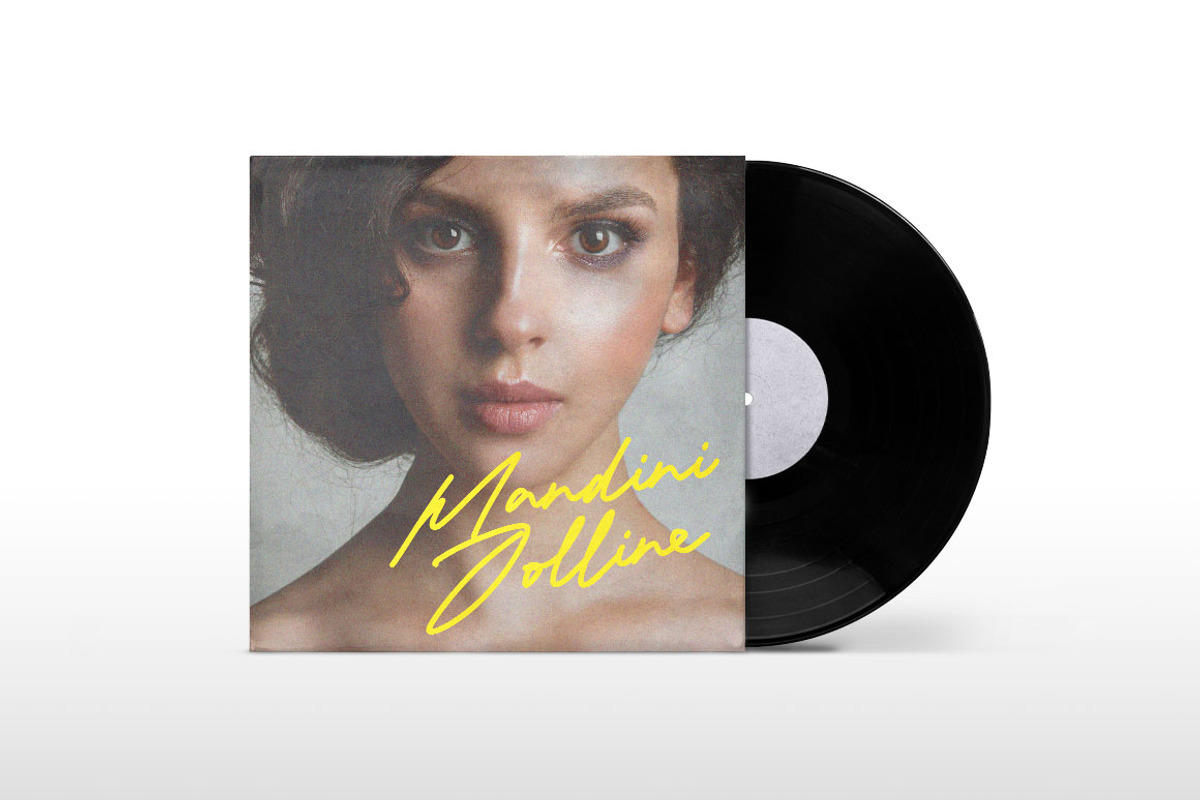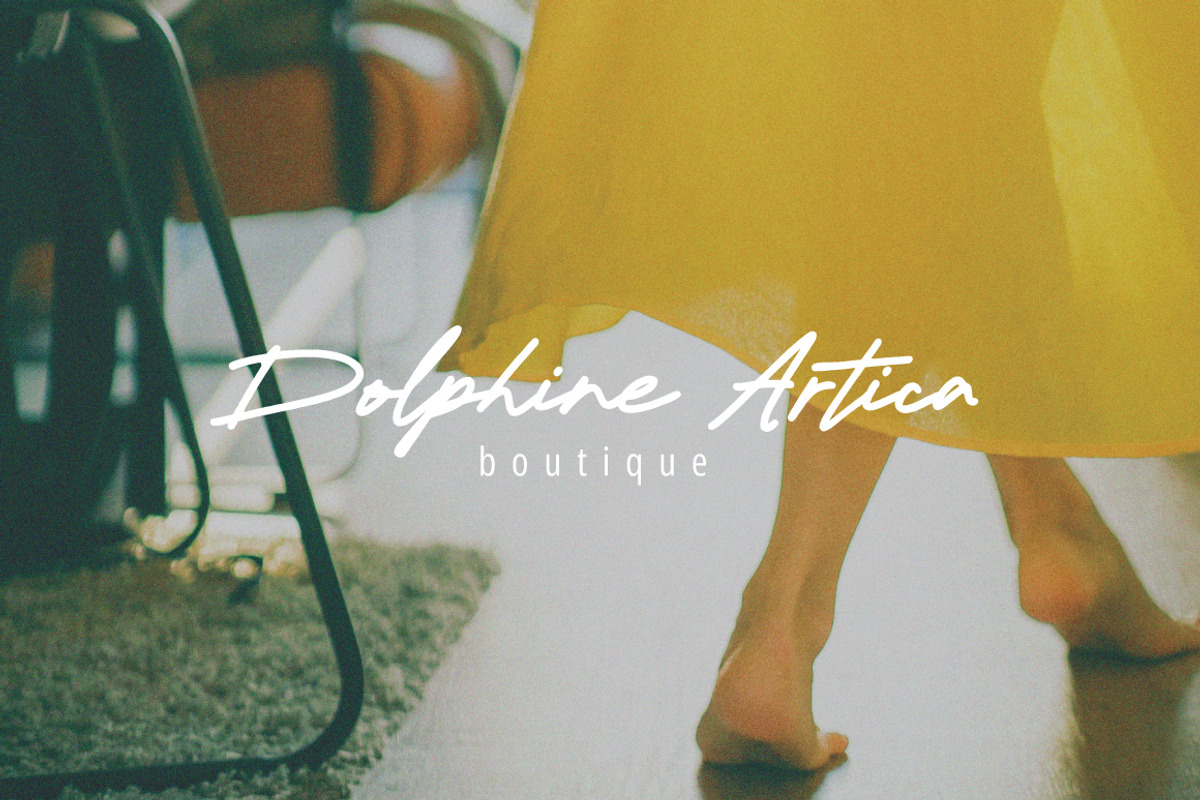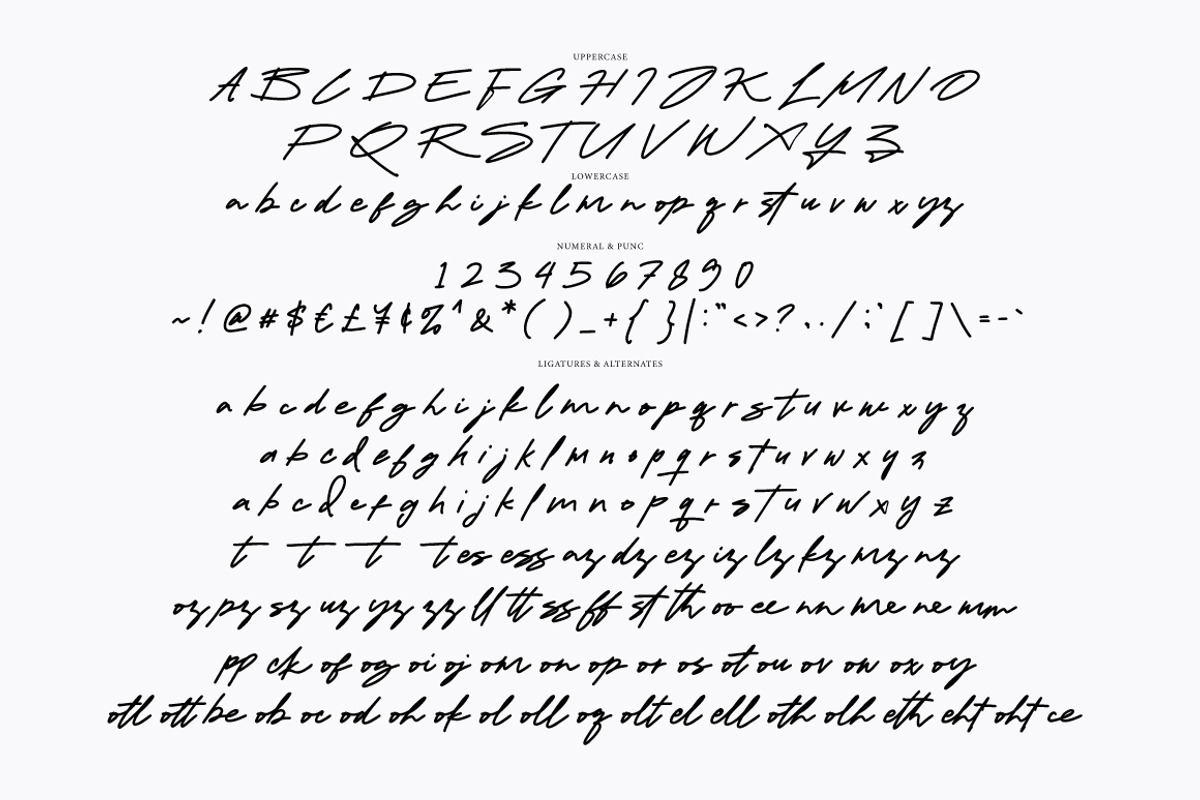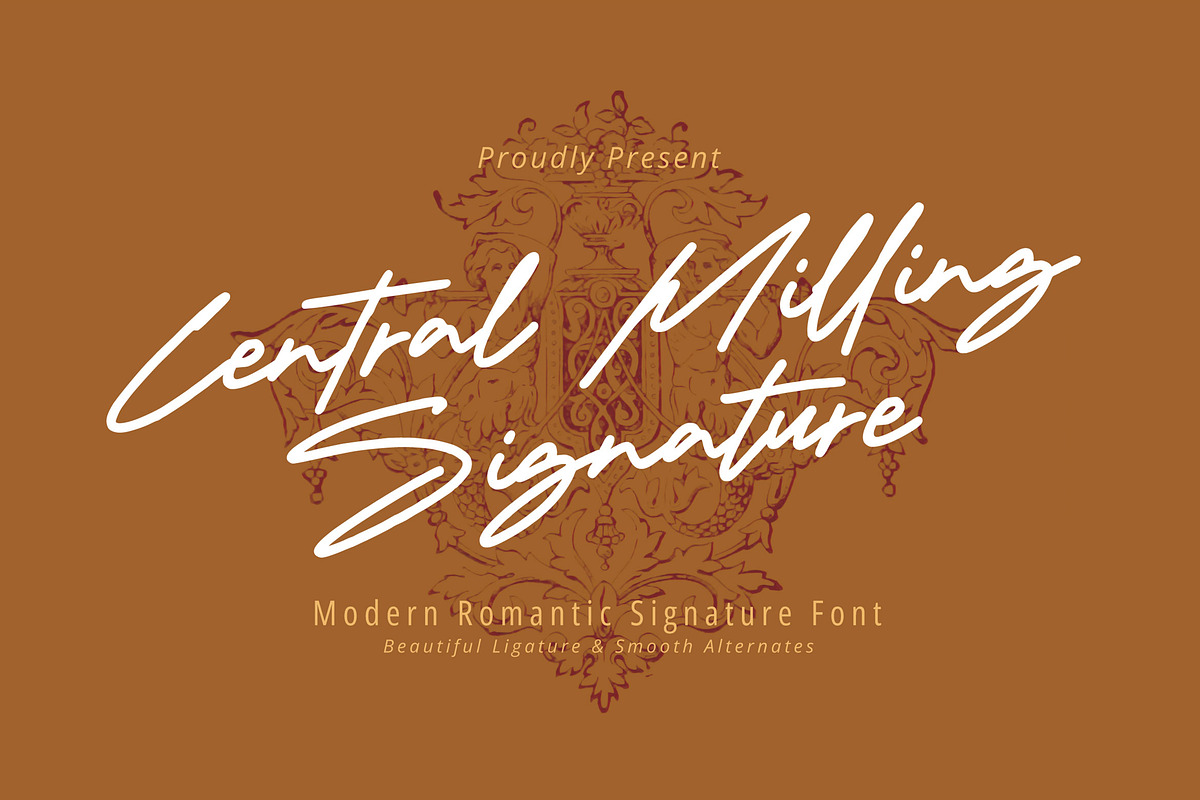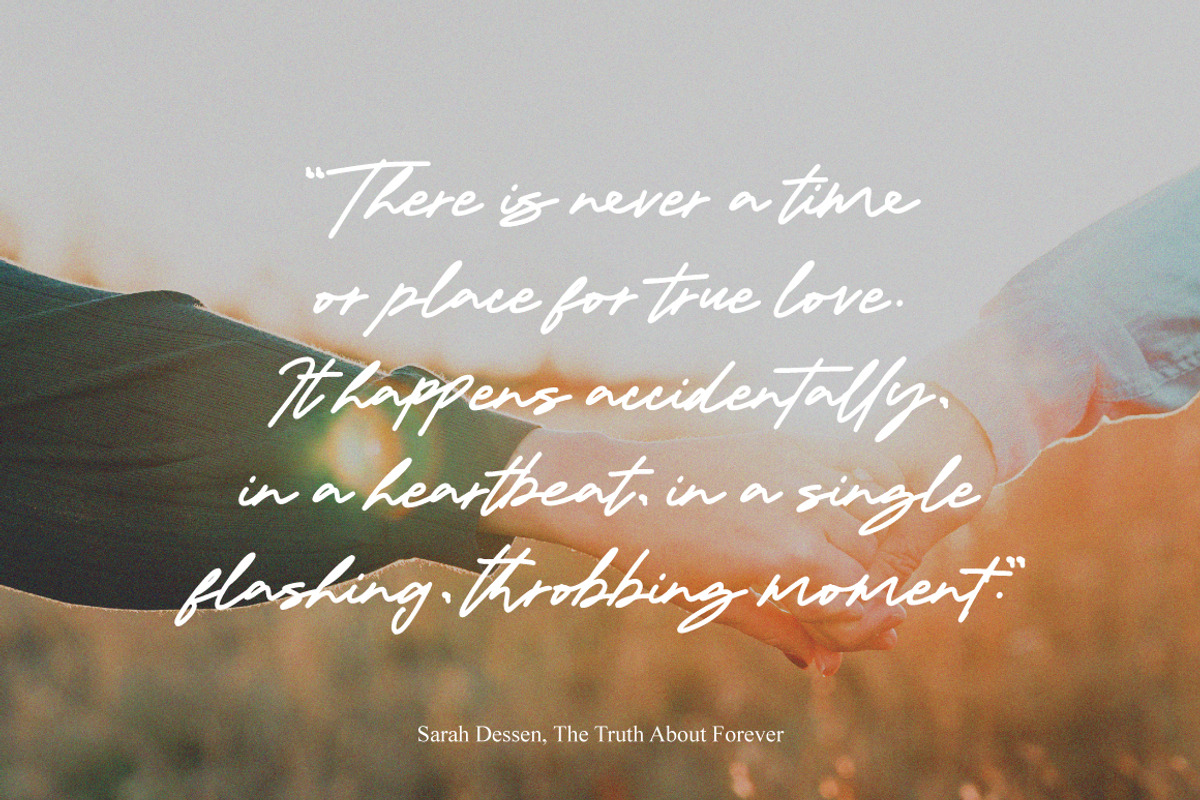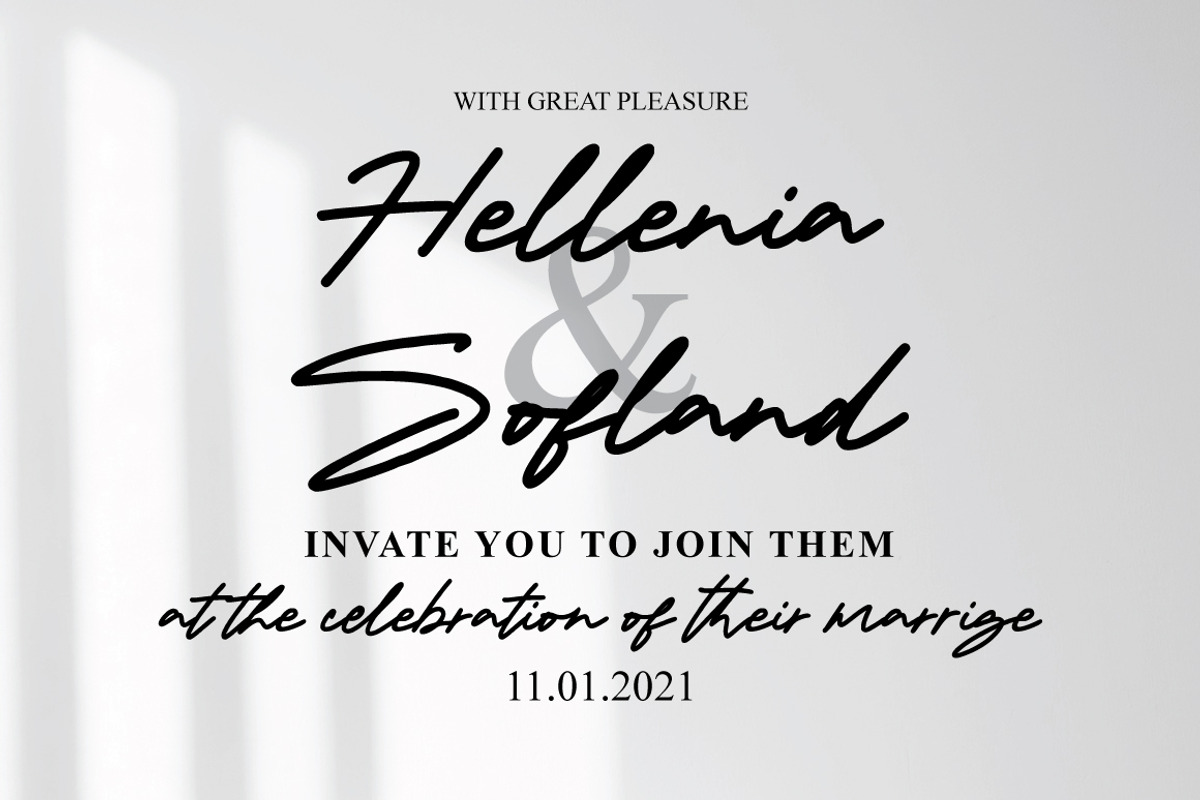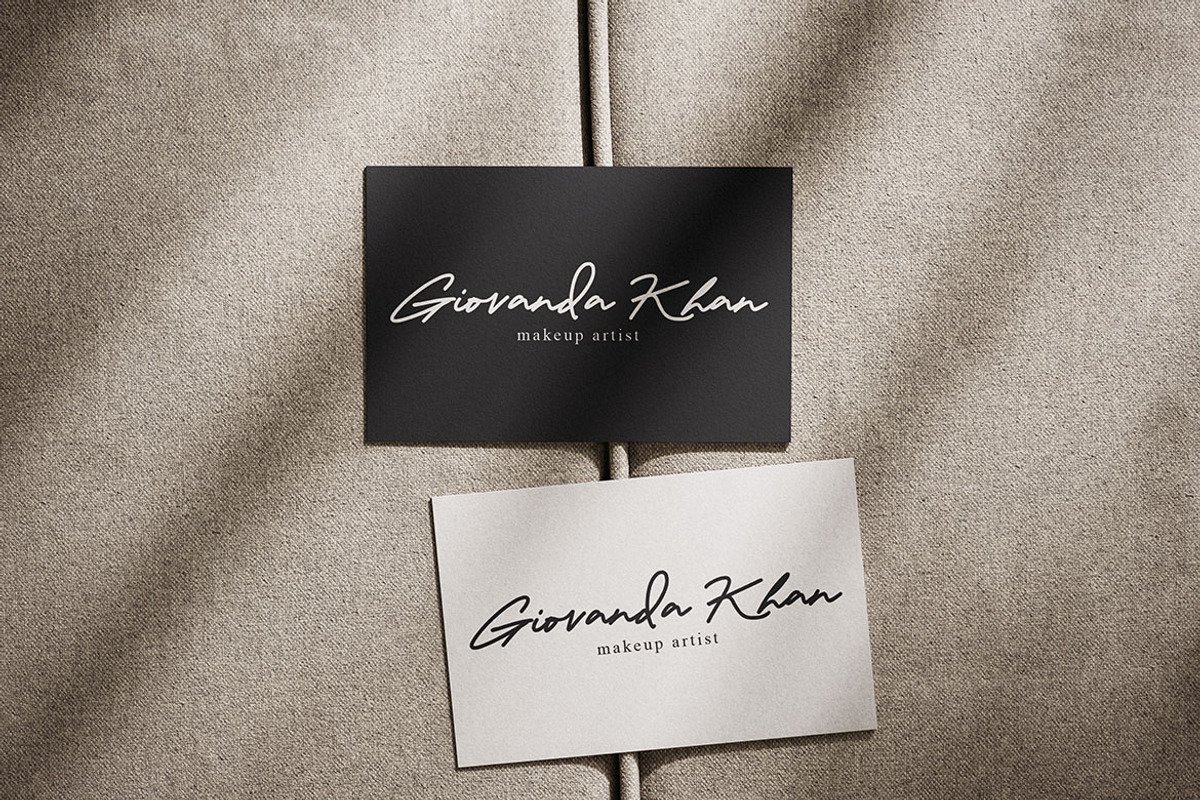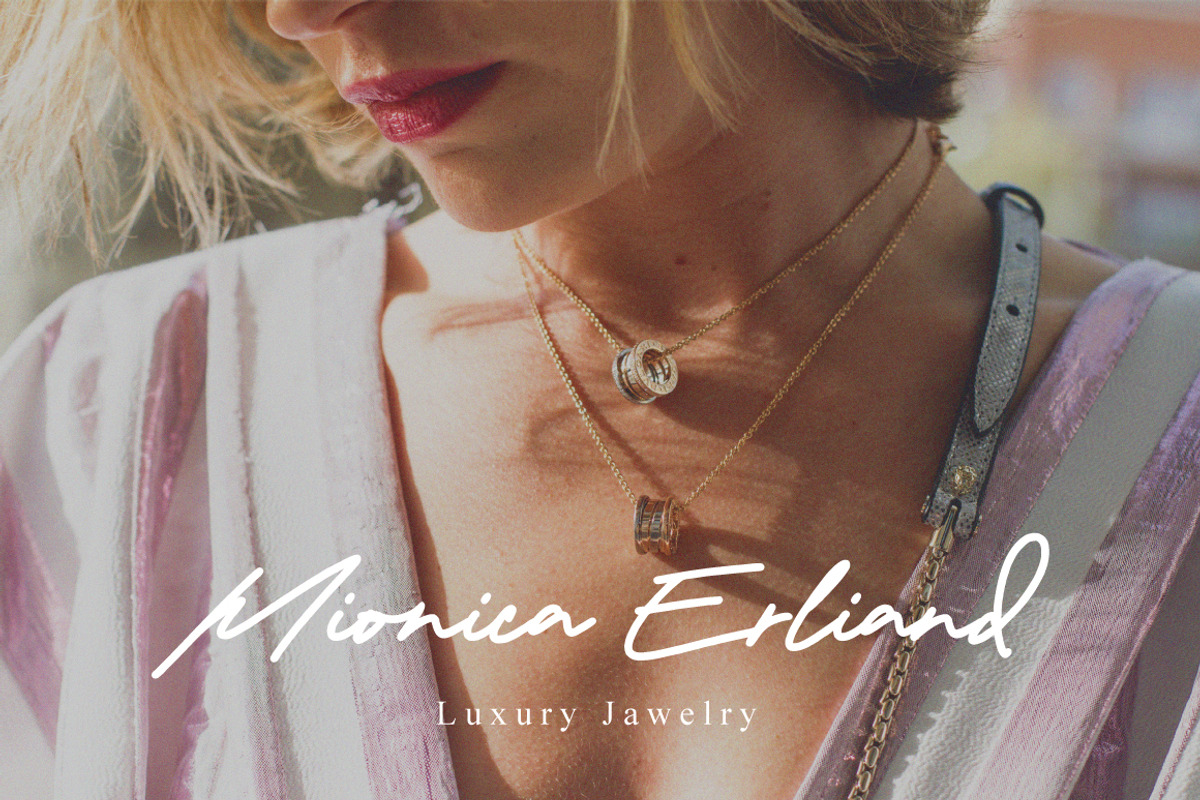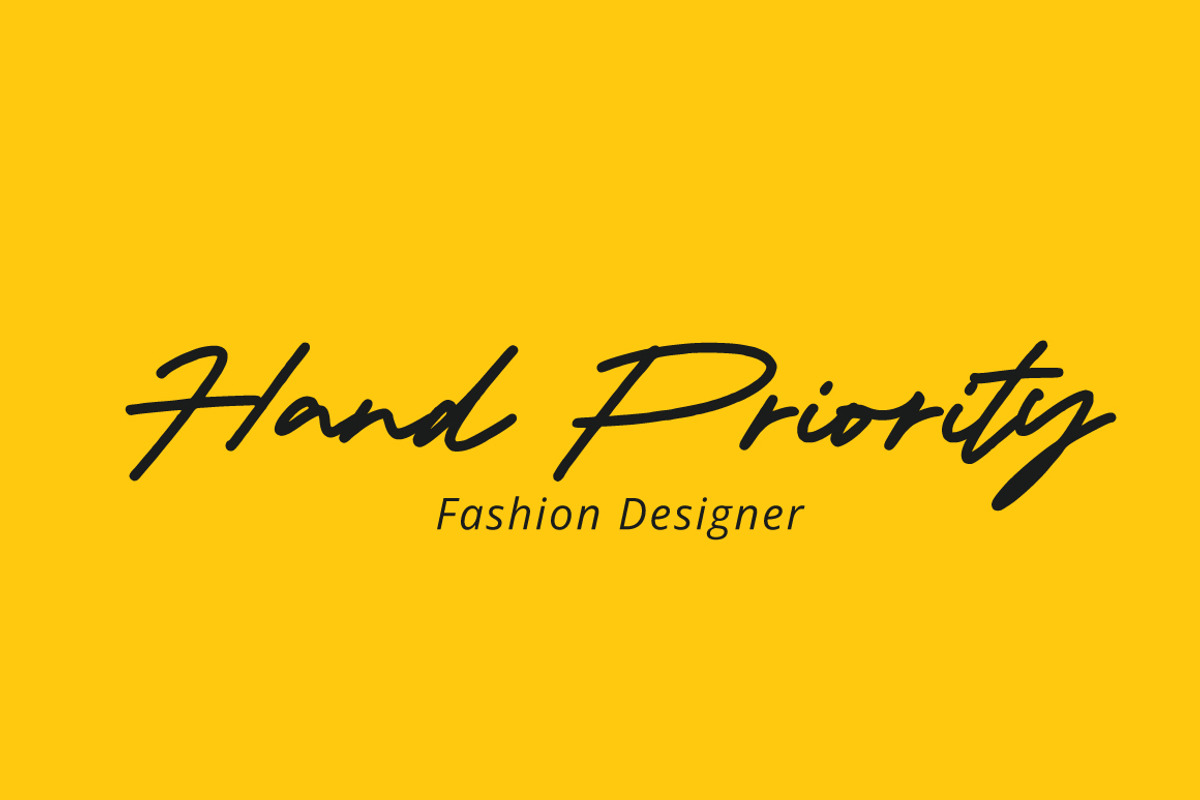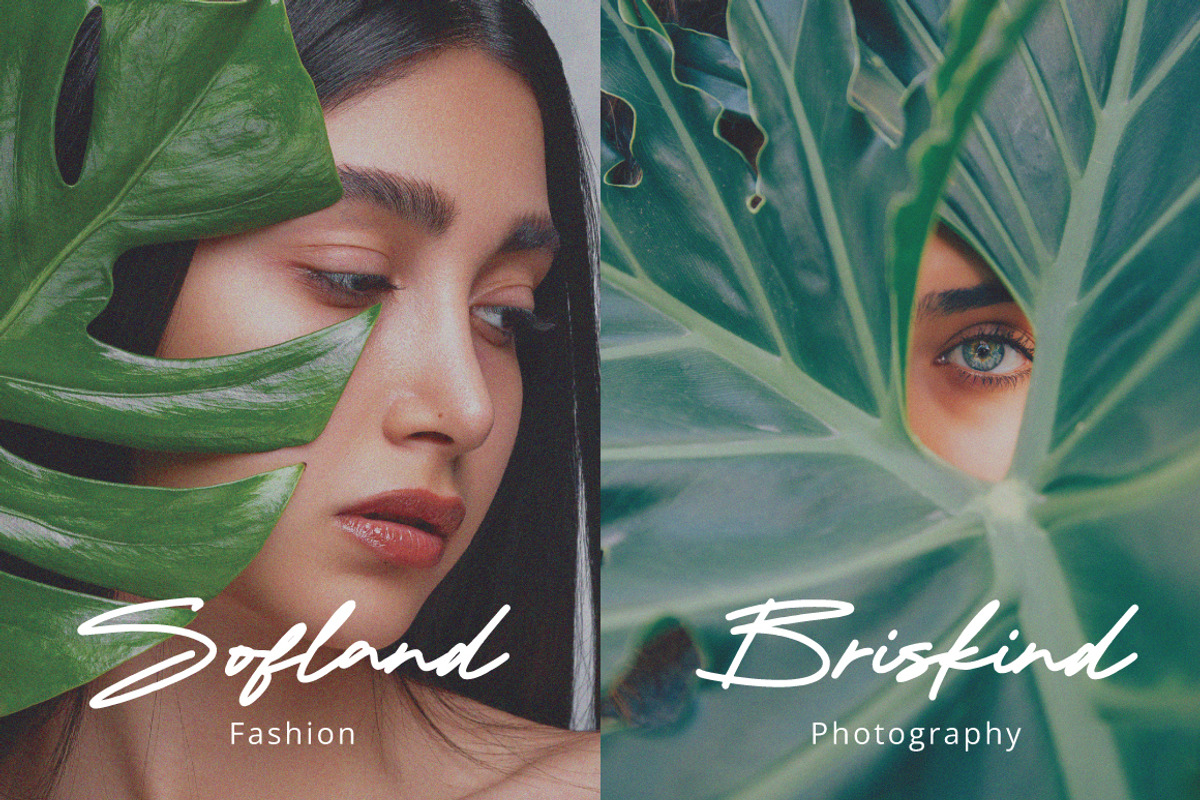
Central Milling – Romantic Signature
Central Milling Signature – Modern Romantic Signature Font
Elevate your designs with Central Milling Signature, an elegant script font crafted with a modern romantic feel. Featuring smooth lines, expressive letterforms, dynamic ligatures, and versatile alternates, this typeface mimics real handwriting to add a refined, high-end feel to your projects.
Central Milling Signature is designed for upscale branding, luxury packaging, editorial layouts, wedding invitations, and lifestyle graphics. It brings a sophisticated, personal touch whenever an exclusive signature aesthetic is needed.
Central Milling Signature :
Uppercase & Lowercase International Languange & Symbols Support Punctuation & Number PUA Unicode Range Standard Ligatures Discretionary Ligatures Stylistic Alternates Stylistic Set.
Suitable for:
Logos & Personal Branding
Beauty Branding
Wedding Invitations
Social Media Content
Photography Watermarks
Quotes & Editorial Design
Product Labels & Luxury Branding
Central Milling Signature was created for designers, business owners, and creators who want to create a classy and memorable visual identity.